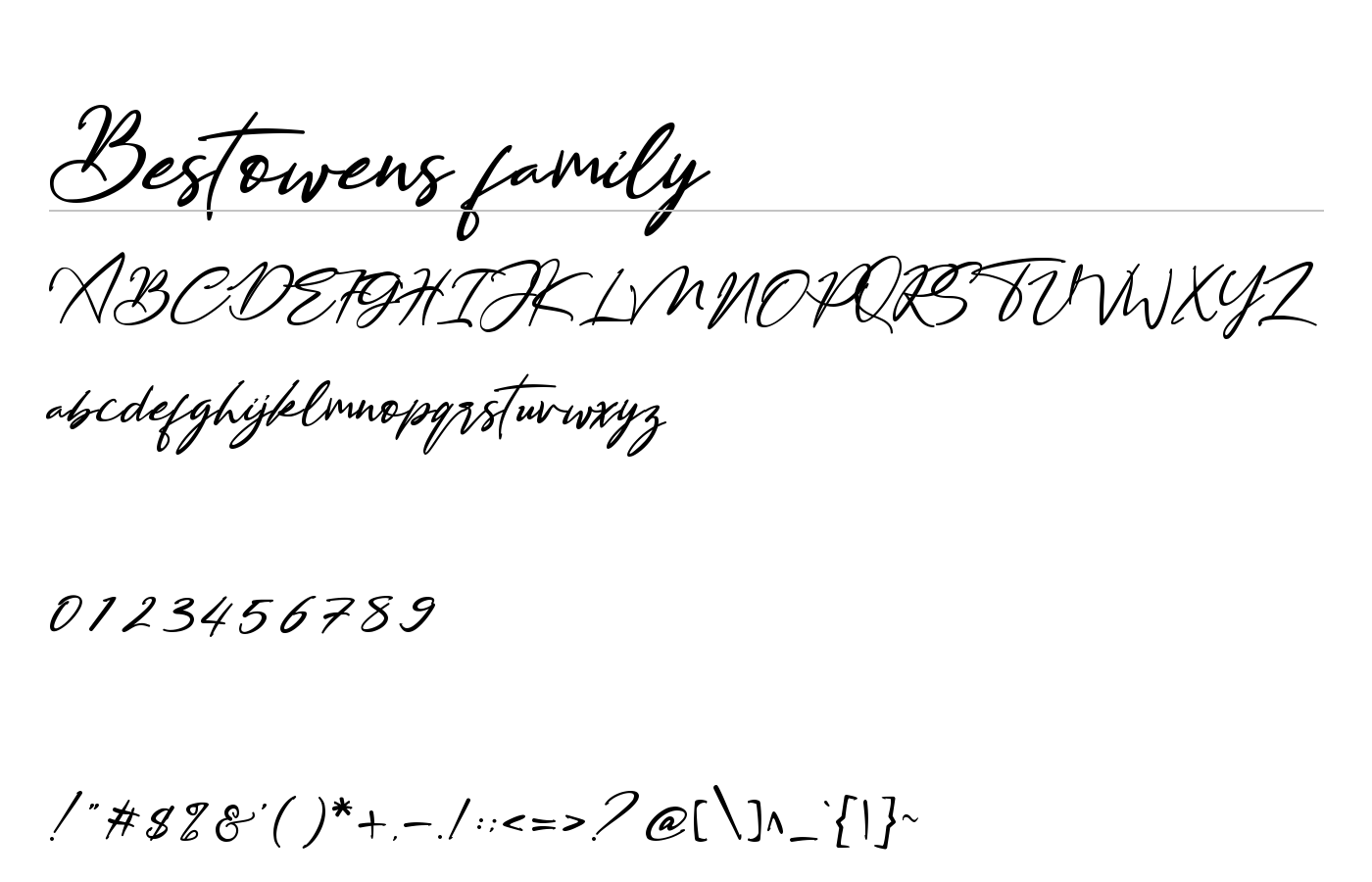
Bestowens family is an elegant script font with a flowing, hand-lettered style that exudes a charming and personal touch. Its fine strokes and slightly slanted characters create a sophisticated yet approachable feel, making it perfect for invitations, branding, and fashion-related designs that want to convey warmth and creativity. This font works especially well in headlines or decorative text where a graceful, artistic vibe is desired.
Bestowens family Font
About Bestowens family Font
| Font family | Bestowens family Font |
| Designer | Letterara 2019 |